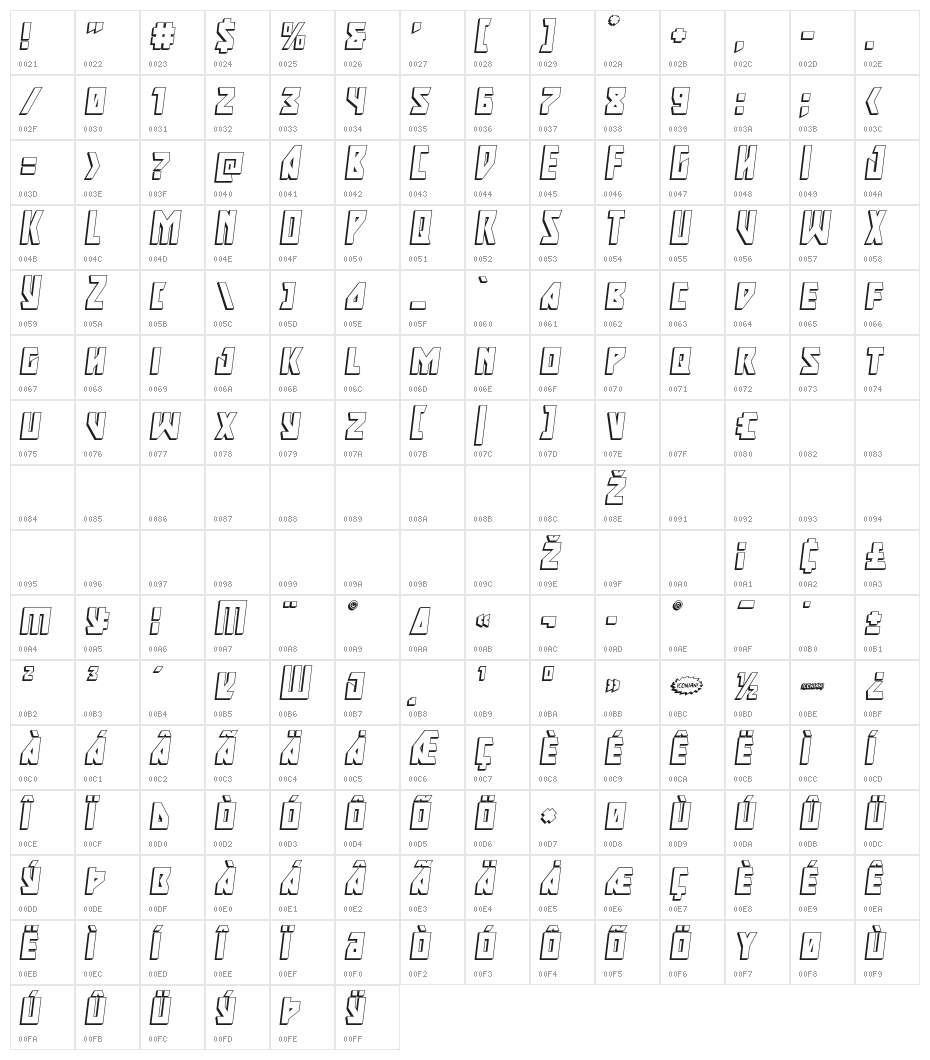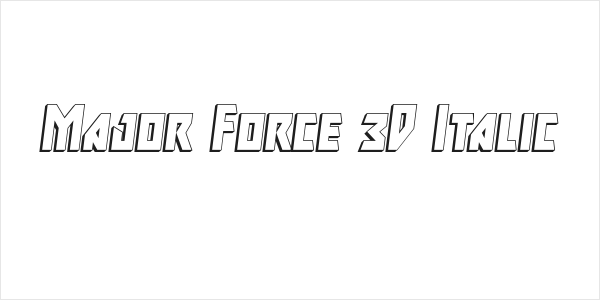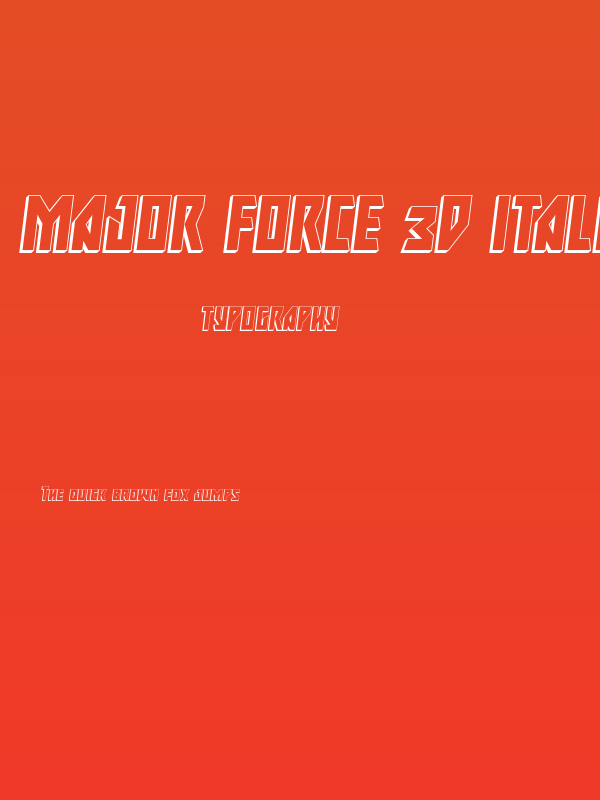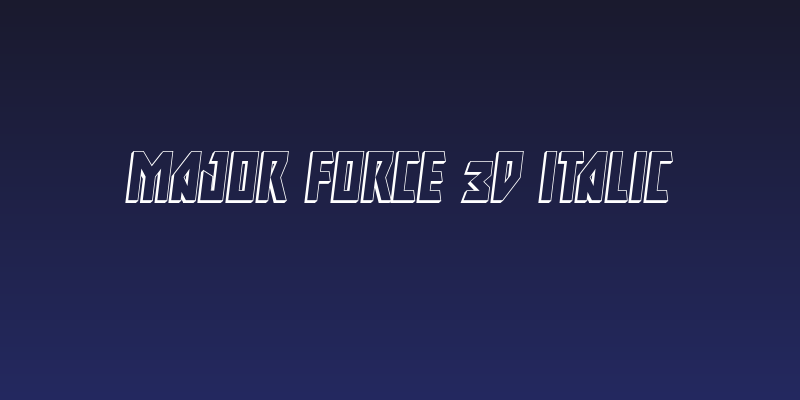
Major Force 3D Italic Font
Major Force 3D Italic Description
This font features a bold, three-dimensional design with an italic slant, creating a dynamic and impactful appearance. The characters are outlined with a thick black border, enhancing the 3D effect and giving a sense of depth. Each letter and number is designed with sharp angles and geometric shapes, contributing to a futuristic and modern aesthetic. The font maintains a consistent style across uppercase, lowercase, and numeral sets, ensuring uniformity. Special characters are also included, following the same bold and angular design. This font is ideal for projects that require a strong visual presence and a contemporary look.
| Proposed Projects | Ideal for video game titles, movie posters, sports branding, and any project needing a bold, futuristic look. |